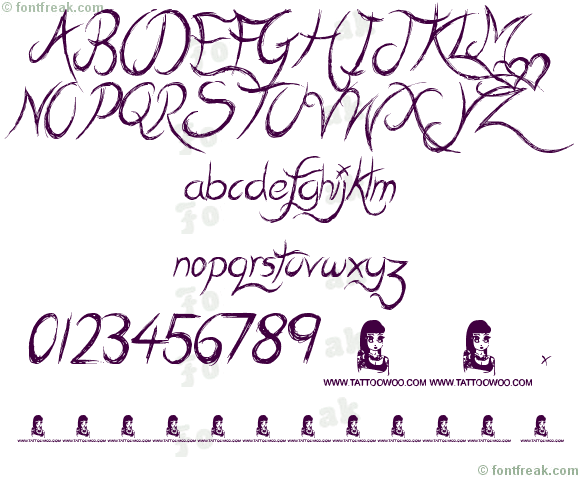
Kiss Me Quick
About Kiss Me Quick
Kiss Me Quick is a captivating handwritten font designed by Jonathan S. Harris, classified within the script category. This font features an expressive and whimsical style, characterized by playful strokes that convey a sense of spontaneity and charm. The stroke weight is varied, adding a dynamic contrast to the letters that makes each character visually engaging. The spacing is well-balanced, allowing for easy readability while maintaining a casual and inviting appearance. Decorative elements, such as the heart motif, enhance its romantic and affectionate vibe, making it perfect for various design applications.
Ideal use cases for the Kiss Me Quick font include wedding invitations, where its romantic flair can set a joyful tone for the occasion. It also works beautifully on love letters or personal notes, adding a heartfelt touch to any correspondence. Additionally, this font shines in the realm of custom merchandise, such as t-shirts or mugs, allowing small business owners to create unique products that resonate with their audience. Graphic designers can leverage its charm for social media graphics, particularly in posts that aim to evoke emotions or capture attention. Finally, it can be effectively used in restaurant menus to highlight special dishes or create an inviting atmosphere.
The target audience for this font includes graphic designers, small business owners, and content creators who seek to infuse their projects with personality and warmth. The Kiss Me Quick font free download offers an accessible option for those looking to enhance their designs without compromising on quality. What truly sets this font apart is its ability to evoke emotion and connection through its playful yet elegant style, making it a versatile choice for various creative endeavors.